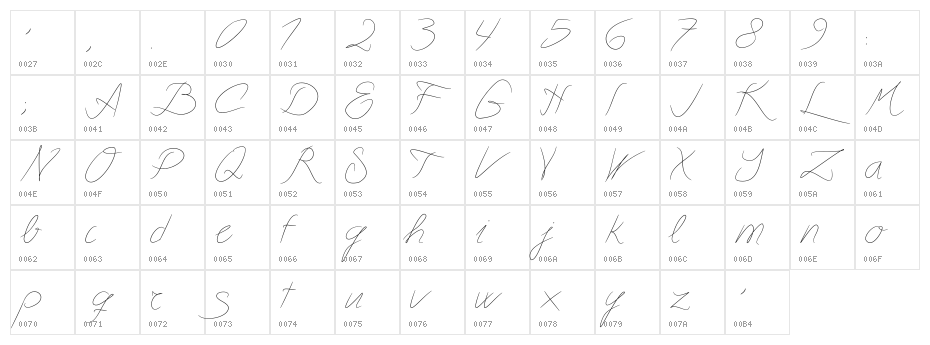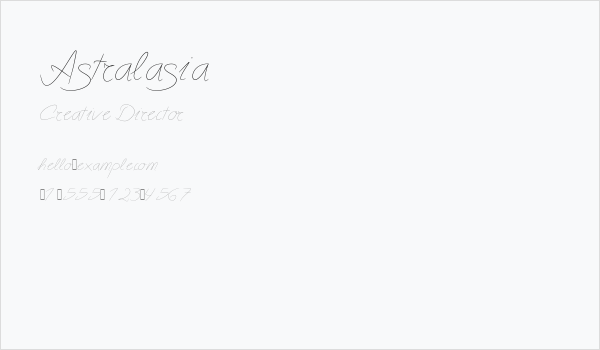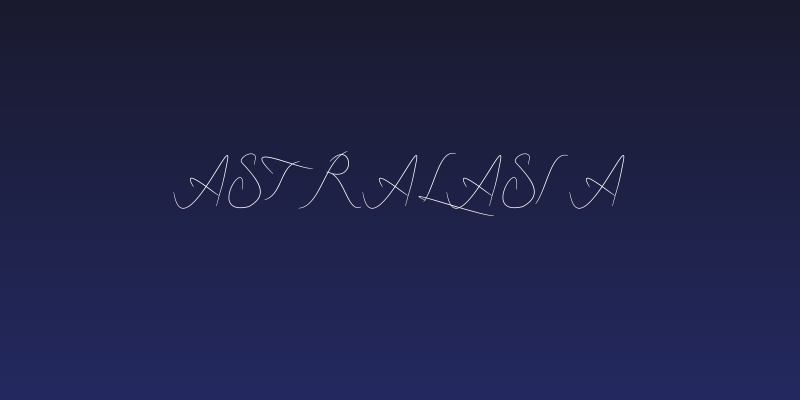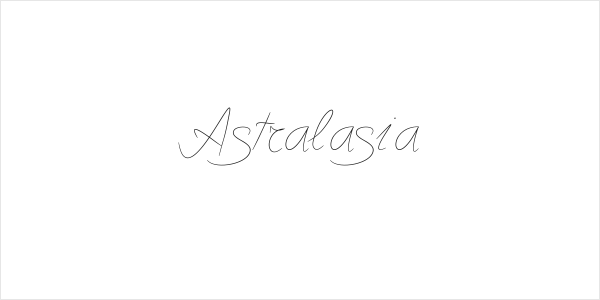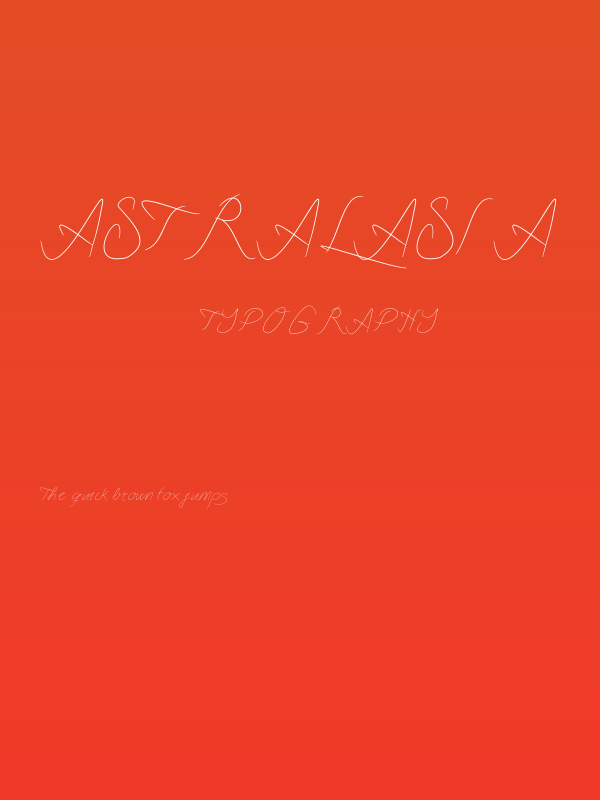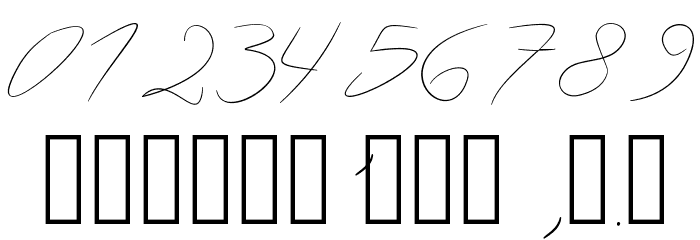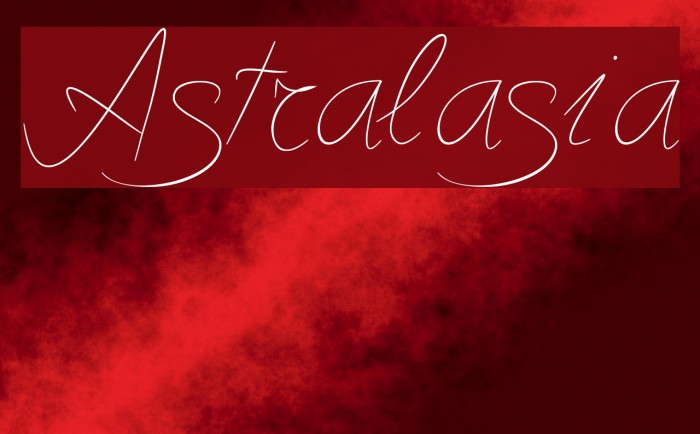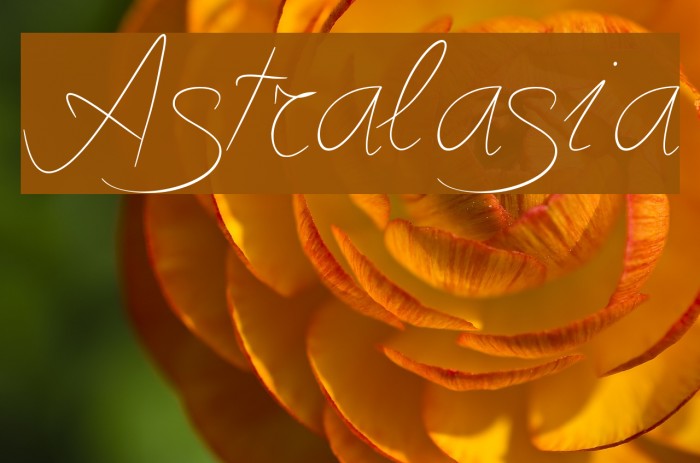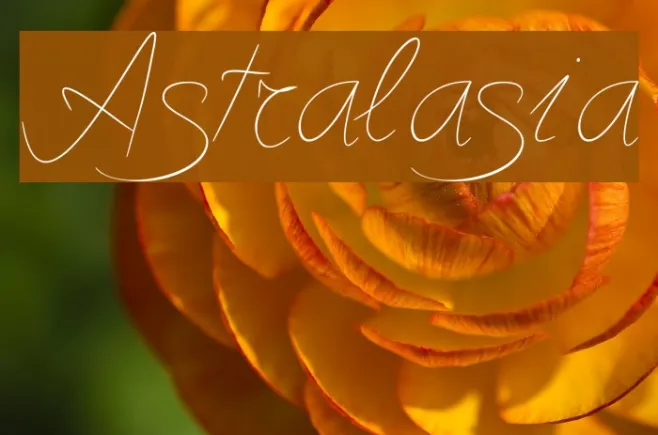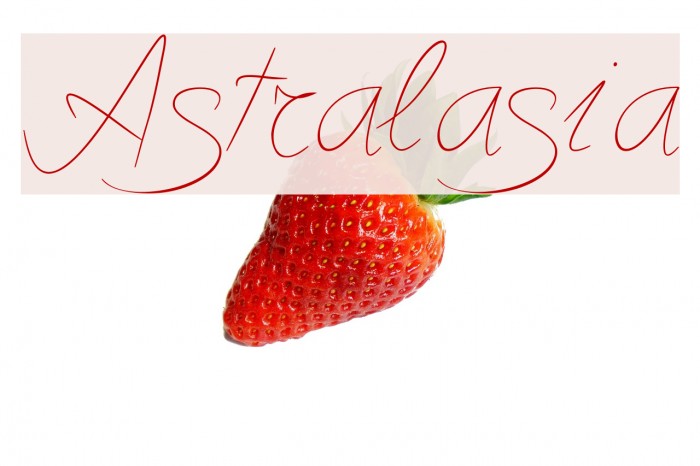
Astralasia Font
Astralasia Description
This elegant script font features a flowing, cursive style that mimics natural handwriting. The characters are connected with smooth, sweeping strokes, giving it a graceful and fluid appearance. The uppercase letters are slightly more elaborate, with extended flourishes, while the lowercase letters maintain a consistent and harmonious flow. The numerals are designed to match the overall aesthetic, with a similar cursive style. The special characters are integrated seamlessly, maintaining the font's cohesive look. This font is perfect for projects that require a personal touch, such as invitations, greeting cards, or branding materials.
| Use Case | Invitations, Personal branding, Greeting cards |
| Proposed Projects | Ideal for wedding invitations, personal branding, greeting cards, and elegant stationery. |